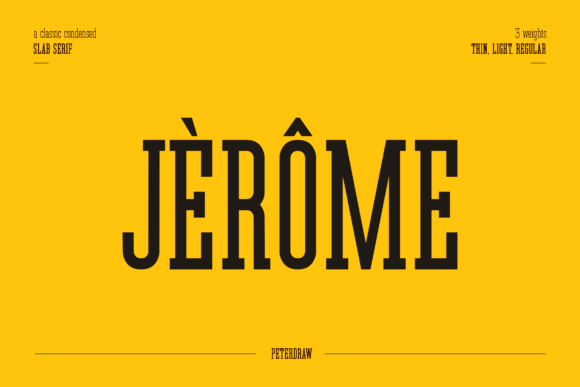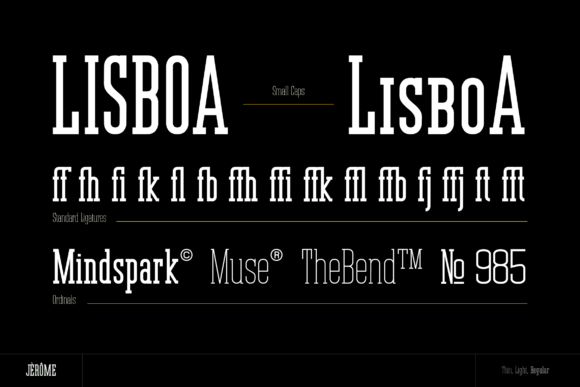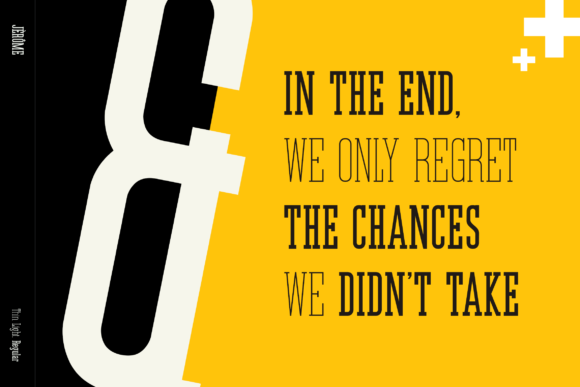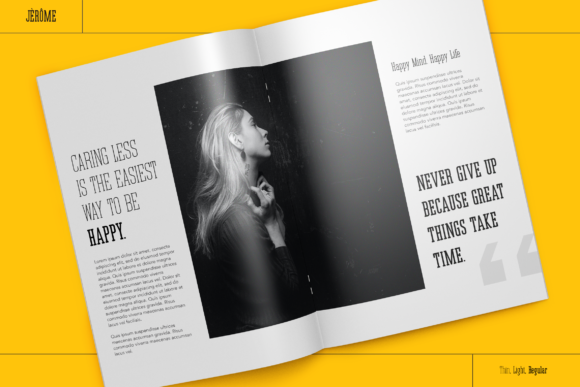
Jerome: A Stylish and Elegant Slab Serif Font
Jerome is a distinctive slab serif font that combines stylishness with timeless elegance. This typeface offers designers a powerful tool for creating spectacular typography across a wide range of design projects.
Key Features of Jerome
- Stylish Design: Features a sophisticated and fashionable appearance
- Incredible Elegance: Offers a refined and graceful aesthetic
- Timeless Look: Designed to remain visually appealing across different eras
- Slab Serif Structure: Incorporates the characteristic thick, rectangular serifs typical of slab serif fonts
- PUA Encoded: Allows easy access to all glyphs and swashes
- Versatile Application: Suitable for creating spectacular designs in various contexts
PUA Encoding Advantage
Jerome’s PUA (Private Use Area) encoding is a significant feature that enhances its usability. This encoding allows designers to easily access all glyphs and swashes included in the font, providing greater creative flexibility and efficiency in design work[3].
Ideal Uses for Jerome
Jerome’s unique characteristics make it particularly well-suited for:
- Elegant branding and logo design
- High-end packaging and product labels
- Sophisticated editorial layouts
- Luxury advertising and marketing materials
- Wedding stationery and invitations
- Book covers and title designs
When incorporating Jerome into your designs, consider the following tips:
- Utilize the PUA encoded glyphs and swashes to add unique flair to your typography
- Experiment with different sizes to showcase the font’s elegant details
- Pair with simpler sans-serif fonts for body text to create contrast
- Consider using it in projects where you want to convey timeless sophistication
Jerome is an excellent choice for designers looking to add a stylish and elegant slab serif to their typographic toolkit. Its timeless look and PUA encoding make it stand out in the world of typography. Whether you’re working on logo designs, creating layouts for high-end publications, or developing branding for luxury products, Jerome offers the perfect blend of sophistication and versatility.
Fall in love with Jerome’s incredibly timeless look and explore how it can elevate your designs to spectacular new heights. From elegant branding to sophisticated editorial layouts, this font provides the tools to create impactful and memorable typography that stands out with its stylish and timeless character.